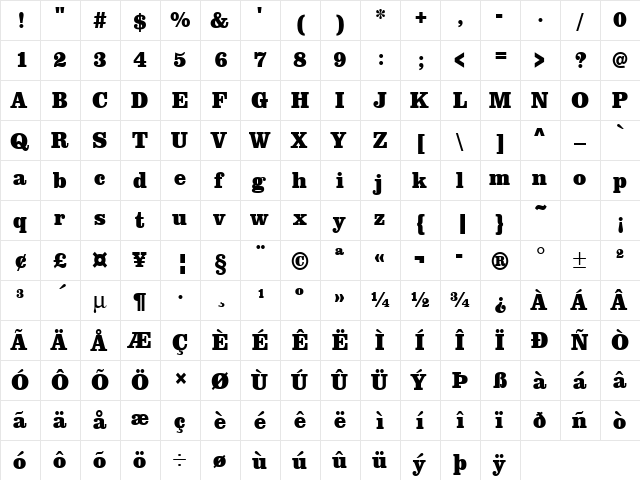
URWClarendonTExtBolExtNar Regular
Design Context for URWClarendonTExtBolExtNar Typeface
URWClarendonTExtBolExtNar features prominent, blocky serifs that give it a confident, grounded presence — equally at home in editorial settings and bold branding work.
Works well in editorial design, news publishing, impactful branding, and poster typography.
Pro Tip: Try URWClarendonTExtBolExtNar set tight in headlines for a classic editorial feel. Its slab serifs create strong horizontal rhythm that anchors a page layout.